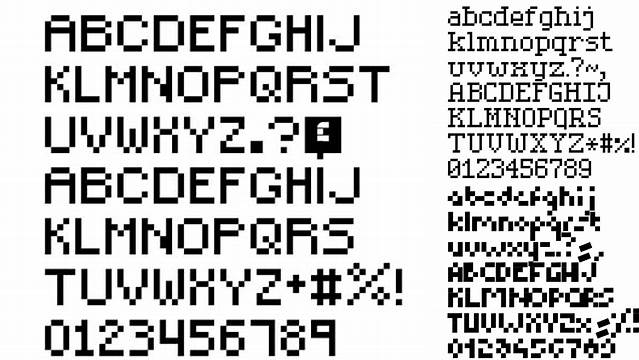
Hey guys! Are you on the hunt for the perfect pixel font free TTF to give your project that retro, 8-bit vibe? You've come to the right place! In this article, we're diving deep into the world of pixel fonts, where to find them, how to use them, and everything in between. Get ready to level up your design game!
1. Understanding Pixel Fonts: What Are They?
So, what exactly are pixel fonts? Think back to the golden age of video games and early computer interfaces. Pixel fonts, also known as bitmap fonts, are typefaces designed with a limited number of pixels. This gives them a distinct, blocky appearance that's instantly recognizable and evokes a sense of nostalgia. They're perfect for projects aiming for a retro aesthetic or when you need a font that remains crisp and legible at small sizes.
The Charm of Pixel Fonts
Pixel fonts aren't just about aesthetics; they're about functionality too. Originally, these fonts were created out of necessity due to the low resolution of early computer screens. Each character was meticulously crafted pixel by pixel, ensuring readability even in the most constrained environments. Today, while high-resolution displays are the norm, pixel fonts retain their charm and are widely used in various applications, from game development to web design.
Where Can You Use Pixel Fonts?
- Game Development: Perfect for dialogue boxes, in-game menus, and retro-style graphics.
- Web Design: Ideal for creating a vintage or arcade-inspired look.
- Graphic Design: Use them in posters, logos, and other visual elements for a unique touch.
- Digital Art: Add a retro flair to your digital artwork.
2. Why Choose TTF for Pixel Fonts?
When it comes to font formats, TTF (TrueType Font) is a popular choice. But why choose TTF for your pixel fonts? TTF is a widely supported format that works seamlessly across different operating systems and design software. It's also scalable, meaning it can be resized without losing its original quality. This is particularly important for pixel fonts, where maintaining the crispness of each pixel is crucial.
TTF Advantages
Tips for Safe Downloads
- Check the License: Always read the license agreement to understand how you can use the font.
- Scan the File: Before installing any font, scan it with your antivirus software.
- Read Reviews: If the website has a review system, check what other users are saying about the font.
4. Top Pixel Fonts for Your Projects
To get you started, here are some top pixel fonts that are perfect for various projects:
Popular Pixel Font Choices
- 8-Bit Operator: A classic choice that's clean and legible.
- Press Start 2P: Inspired by the arcade game "Press Start," this font is perfect for retro gaming projects.
- Fixedsys Excelsior: A revival of the original Windows Fixedsys font.
- Mini Pixel: As the name suggests, this is a tiny pixel font that's great for small text.
- Perfect DOS VGA 437: A faithful recreation of the IBM PC BIOS font.
How to Choose the Right Font
When selecting a pixel font, consider the following:
- Readability: Make sure the font is easy to read, even at small sizes.
- Style: Choose a font that matches the overall aesthetic of your project.
- Purpose: Consider the font's intended use (e.g., headings, body text, UI elements).
Hierarchy
Use different font sizes and styles to create a visual hierarchy that guides the reader's eye.
30. Final Thoughts: Embracing the Pixel Font Aesthetic
So, there you have it! Everything you need to know about pixel font free TTF downloads and how to use them in your projects. Whether you're a game developer, web designer, or graphic artist, pixel fonts can add a unique and memorable touch to your creations. Embrace the retro aesthetic, experiment with different styles, and have fun! Happy designing, guys!